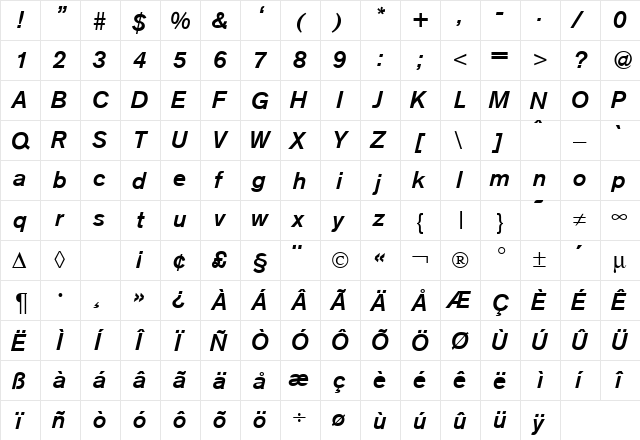
AkzentMedium RegularItalic
Design Context for AkzentMedium Typeface
AkzentMedium takes a measured approach to typography — its balanced proportions and neutral character make it a reliable workhorse for both digital and print work. The dynamic lean of this cut emphasises speed and emphasis in any layout.
Pro Tip: Use AkzentMedium for emphasis, pull quotes, and subheadings where its slanted energy can add rhythm to the layout.